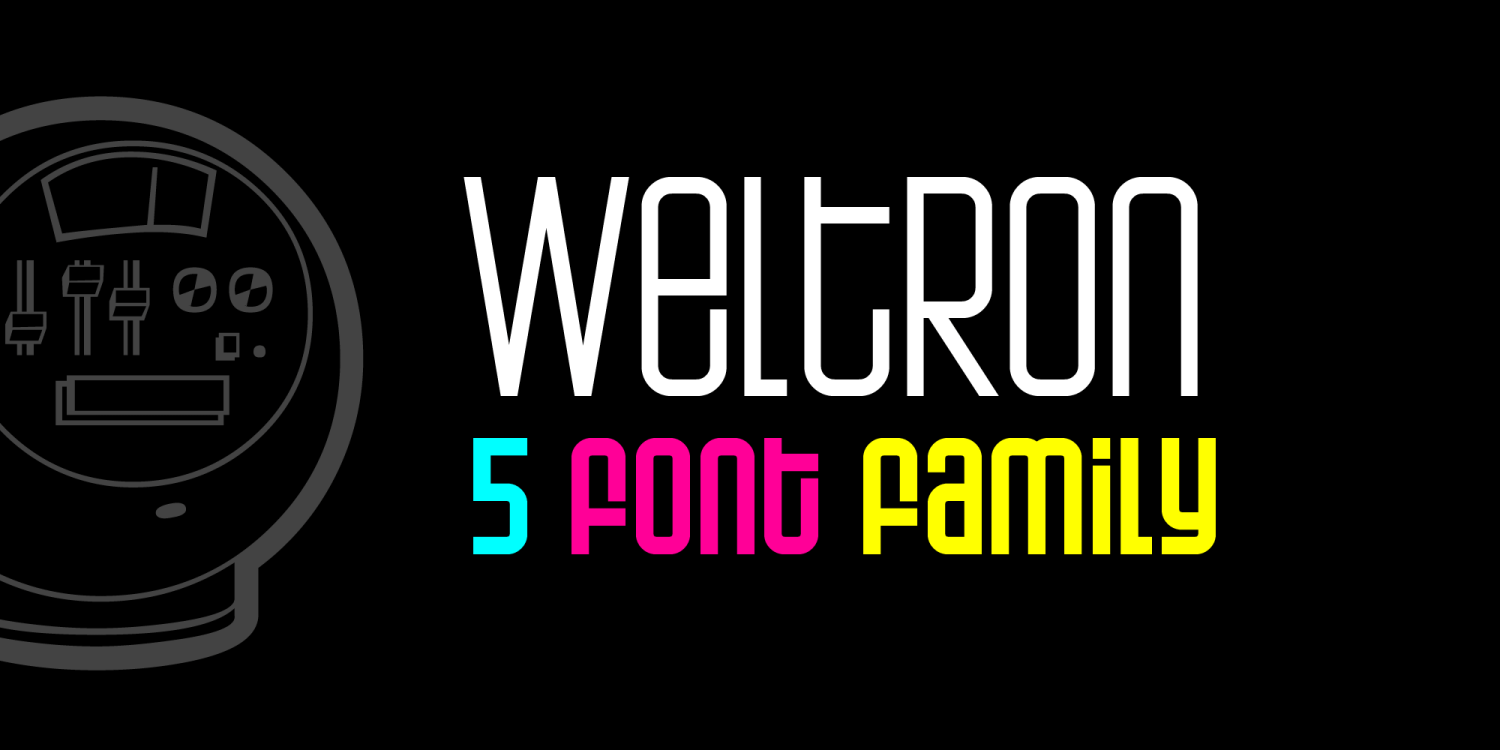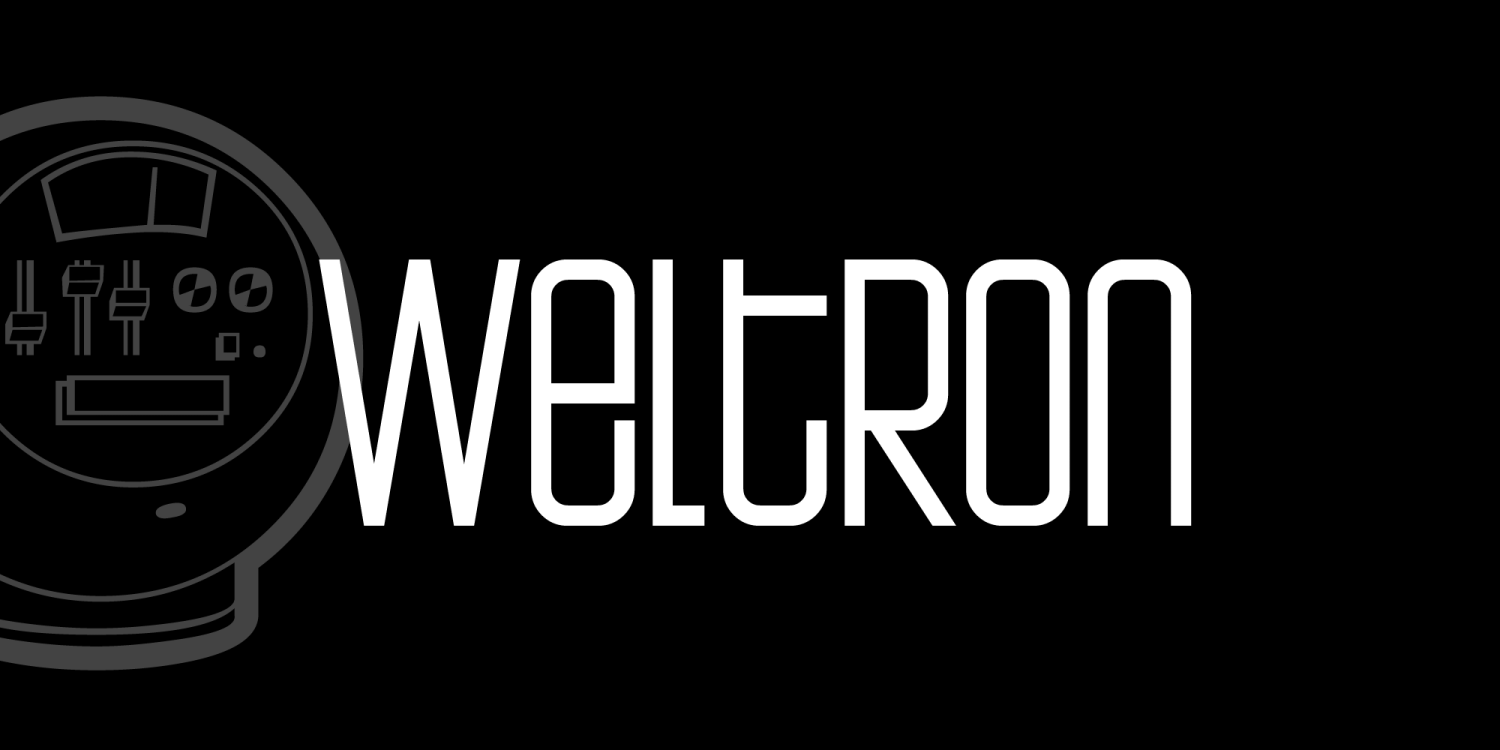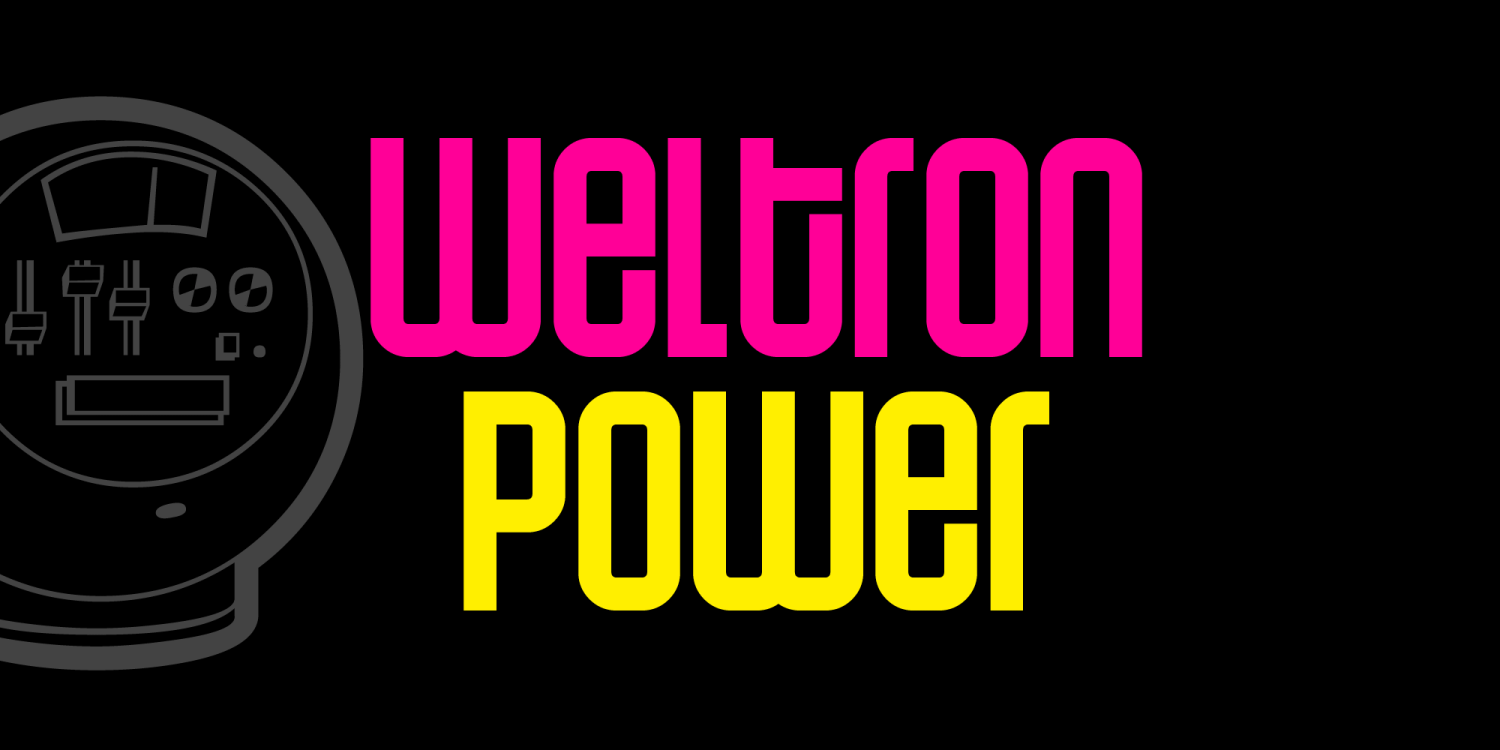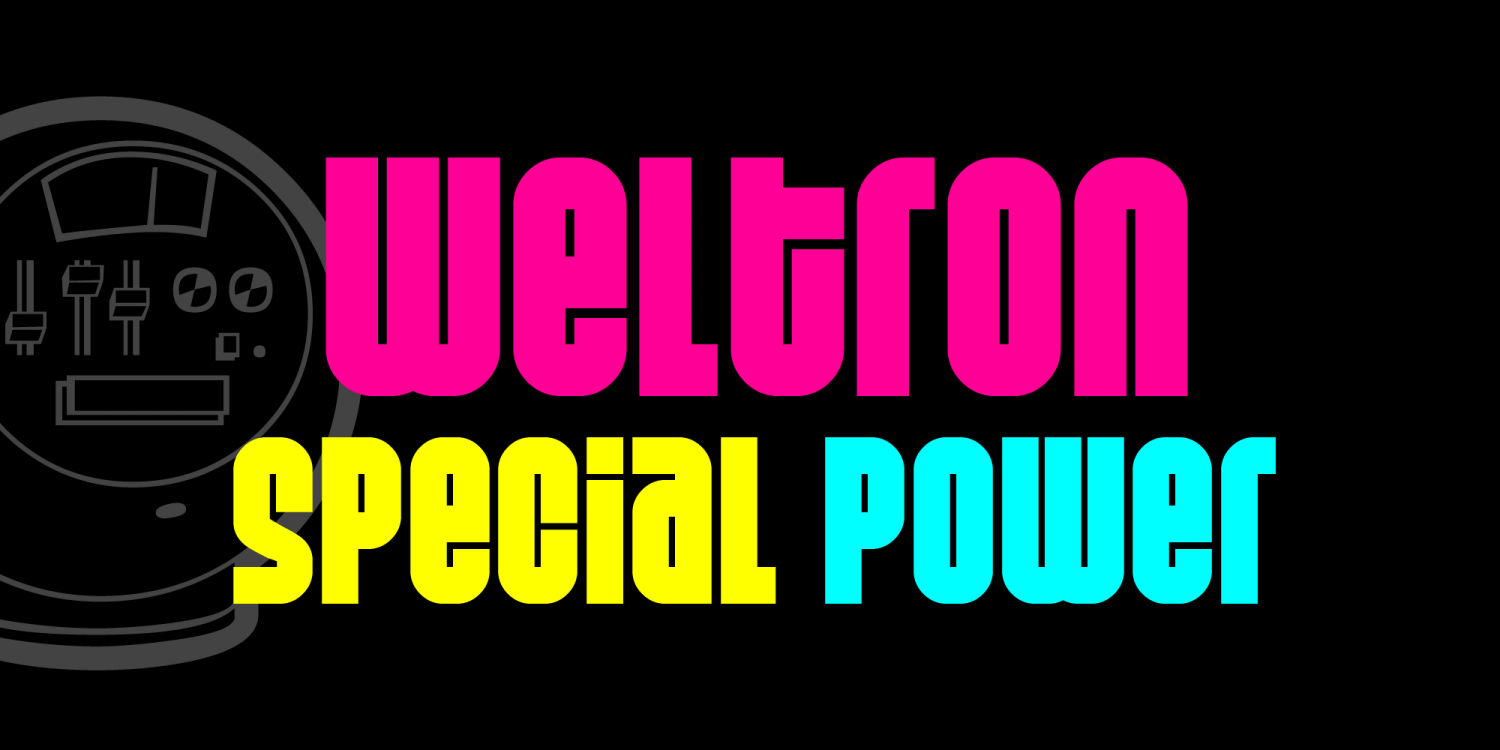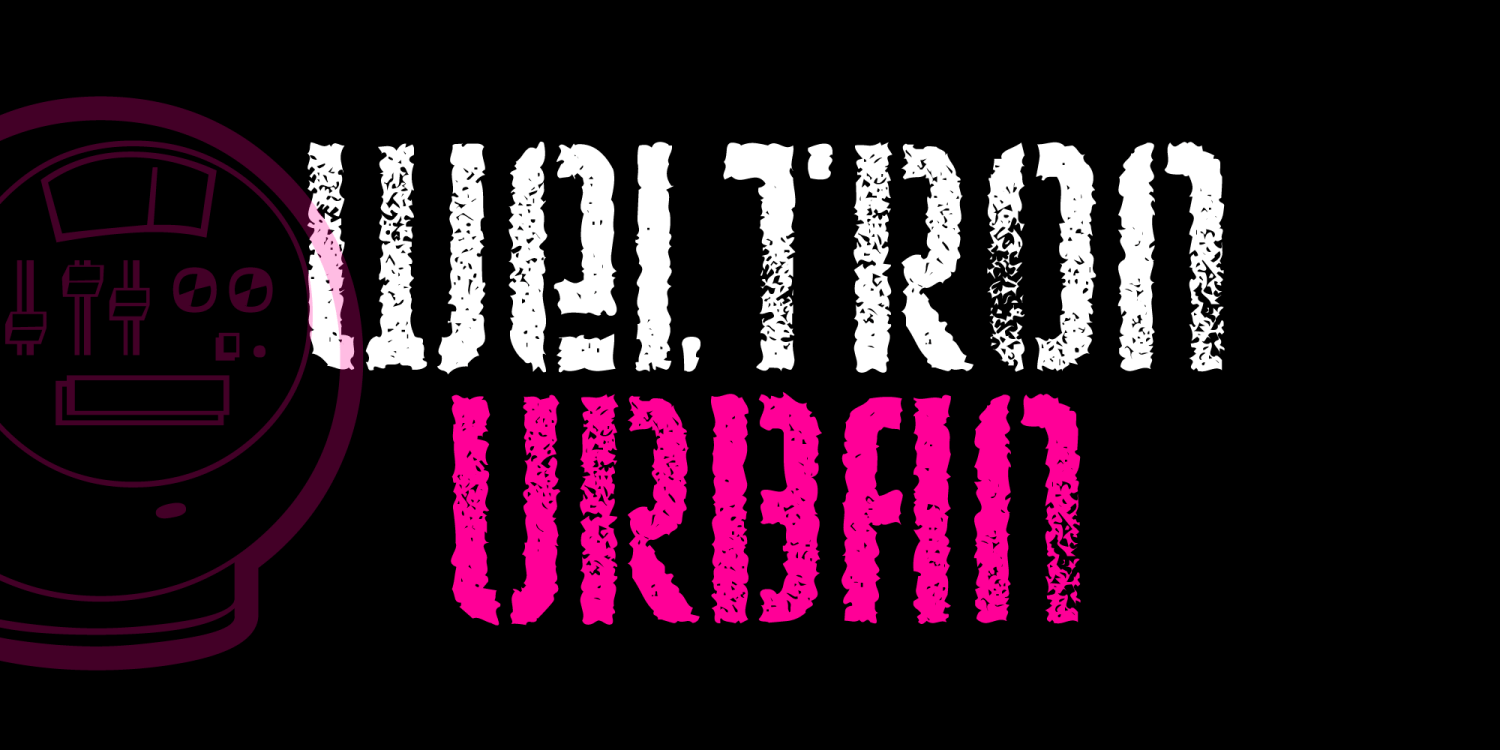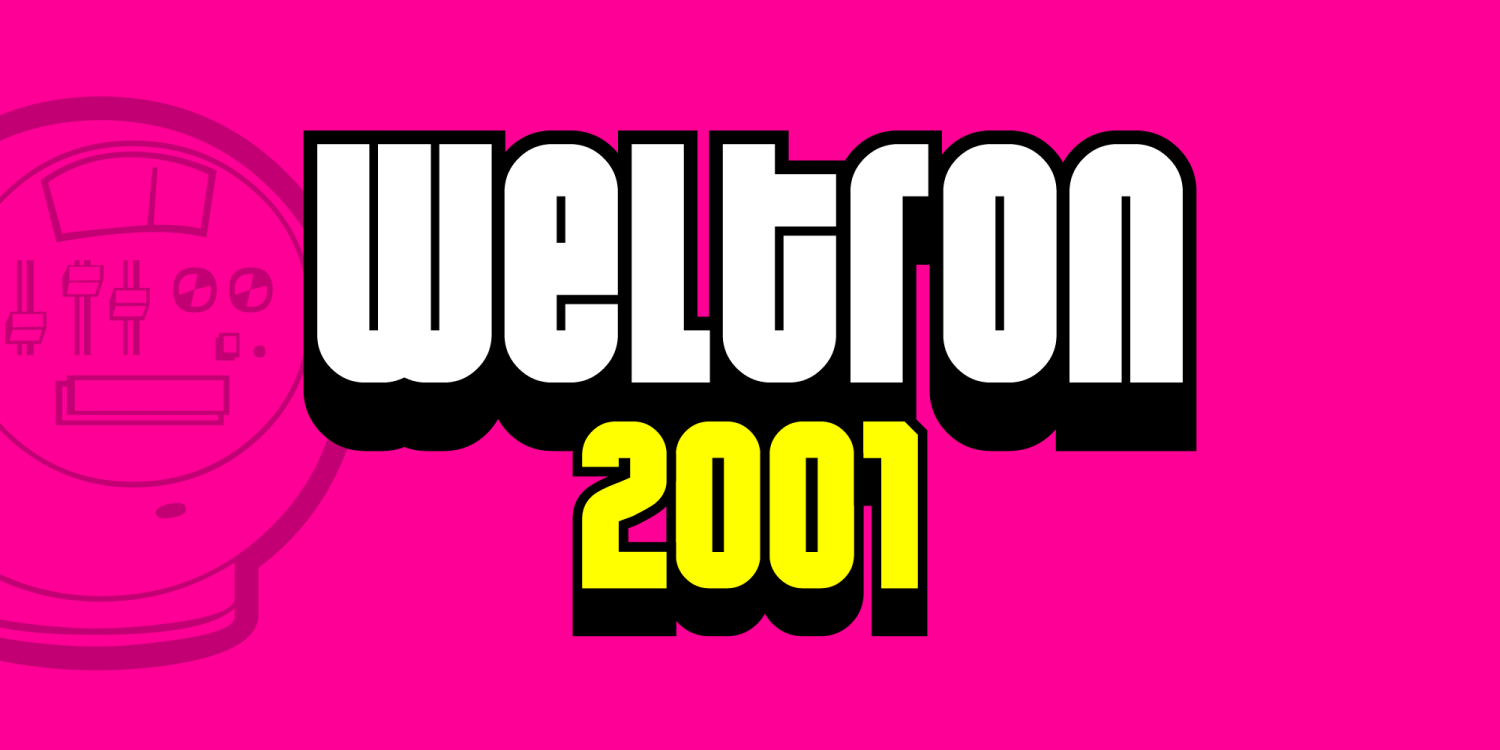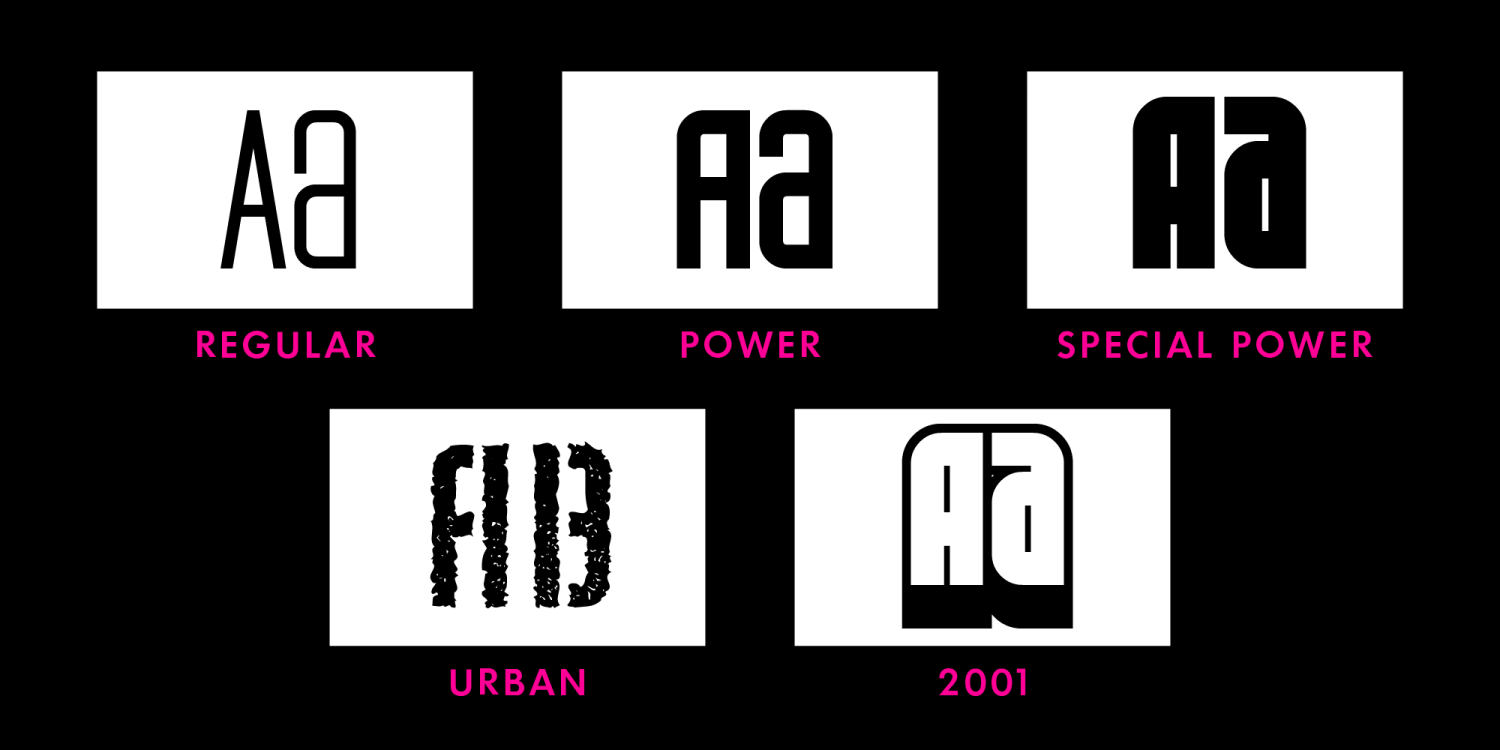
I haven't made any totally elite fonts in a while. I don't want people to think I am some punk that's all good looks and no class. So this afternoon I set to work on building a very clean-cut font that my friends can use to type regular stuff with. You know, cocktail party invites, labels for organizing their things made of gold, and designing the ultimate "I'm #1" t-shirt. Ah, the finer things in life.